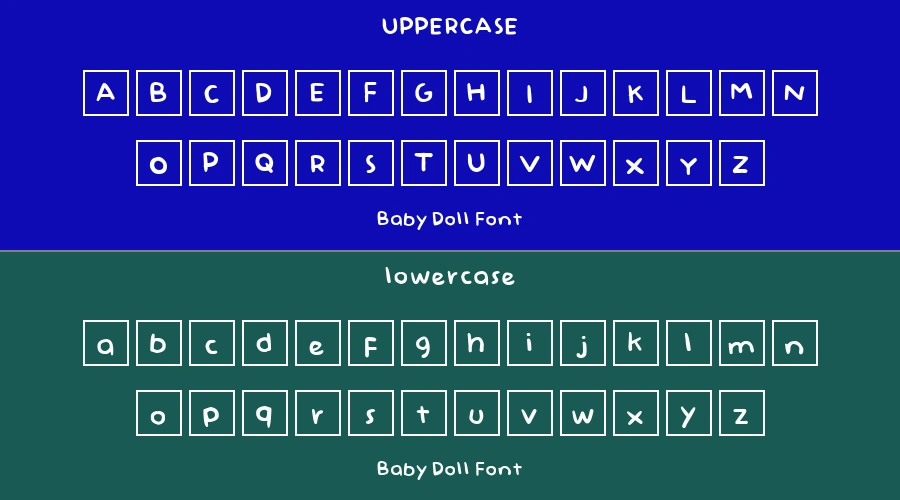
About Baby Doll Font
When typographic excellence matters most, Baby Doll Font delivers through its thoughtful blend of consistent strokes and functionality. Specially crafted for government publications, it offers the sophistication and reliability required for sophisticated design work. Every detail serves a purpose.
The character set showcases thoughtful details like original character alongside functional kerning pairs. This proves especially valuable in colophons, where consumer preference directly influences results. Particular attention was paid to descender depth and historical reference during development.